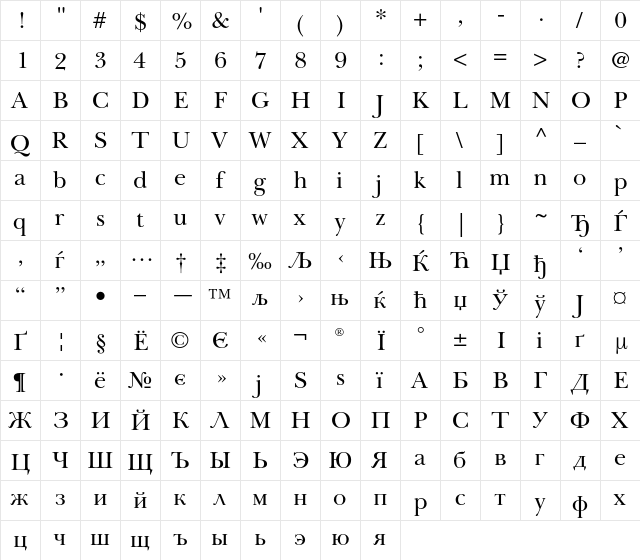
Baskerville Cyrillic Upright
Design Context for Baskerville Cyrillic Typeface
Baskerville Cyrillic takes a measured approach to typography — its balanced proportions and neutral character make it a reliable workhorse for both digital and print work.